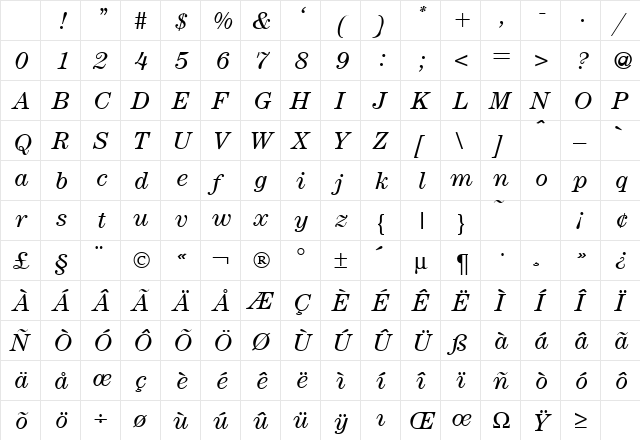
Complete ModernCentury RegularItalic glyph index. Displaying only characters natively supported by ModernCentury RegularItalic font.
ModernCentury is a composed and adaptable typeface that performs quietly and consistently across a wide range of design contexts. The slanted form adds forward momentum and visual energy.
Pro Tip: Use ModernCentury for emphasis, pull quotes, and subheadings where its slanted energy can add rhythm to the layout.